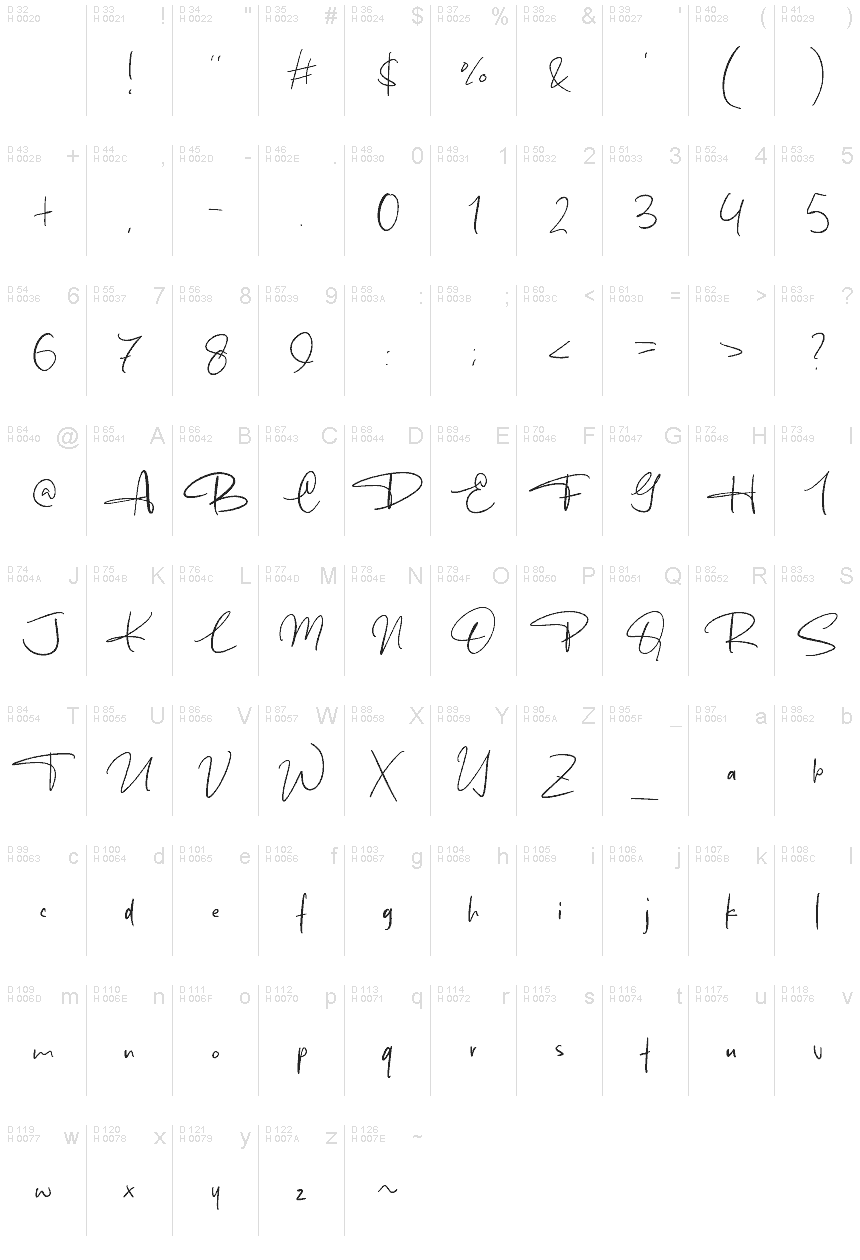
Bukanyah
Bukanyah font by MJType is an elegant and fluid handwritten signature font. It has a modern script style with casual elegance and expressive forms that can easily make your designs appear stylish. The free font achieves its excellence thanks to letter shapes inspired by the traditional tools used for creating handwriting.
Advertisements, posters, invitations, logos, branding designs, labels, packaging projects, magazines, social media visual content, quotes and book covers are part of the long list of possible use cases for Bukanyah in design.